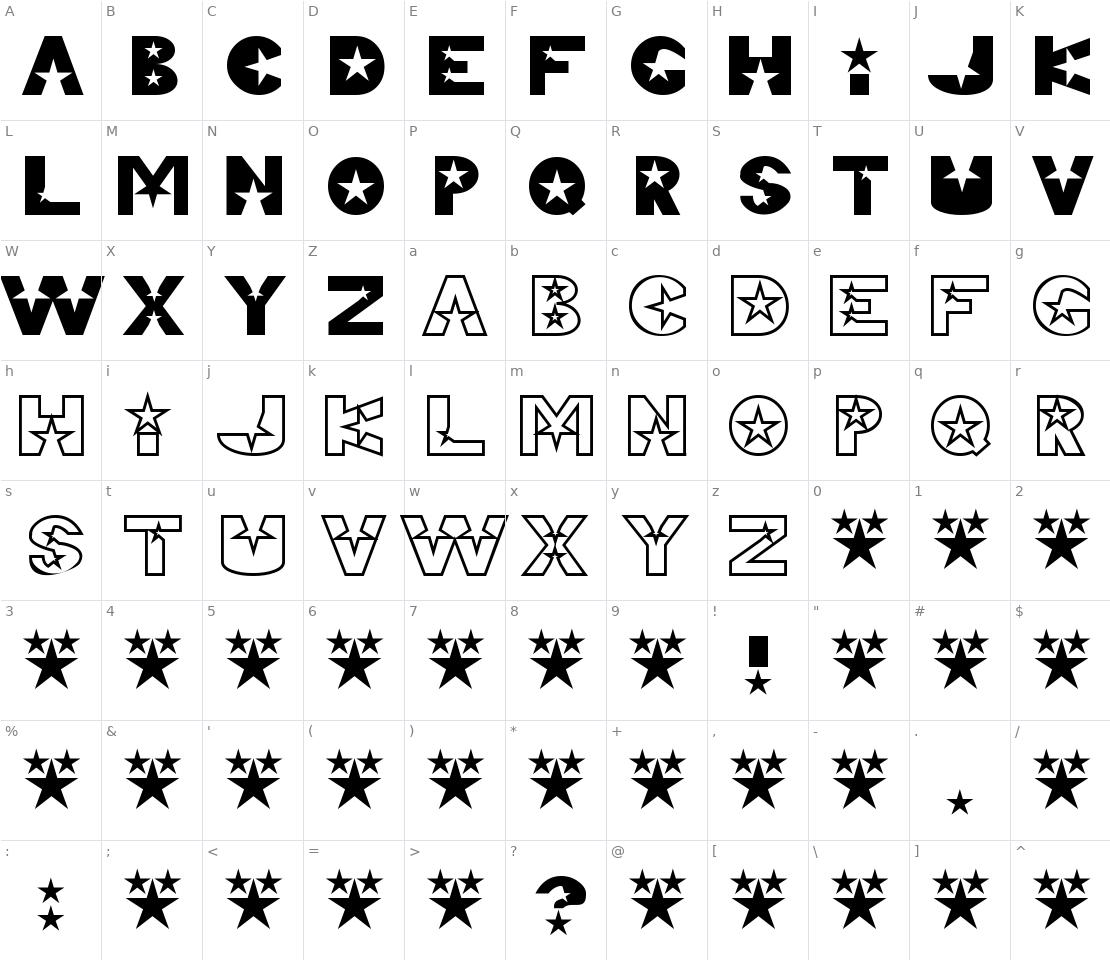
Telemarketing Superstar
Telemarketing Superstar is a bold, uppercase outline face from Marianfudge with a playful, novelty edge that doesn't try to be subtle. The hollow letterforms and star-accented details give it a tongue-in-cheek personality, like something you'd see on a game show set or a kitschy promotional flyer. Strictly a display face, best at large sizes for headlines, posters, and designs that lean into fun over formality.